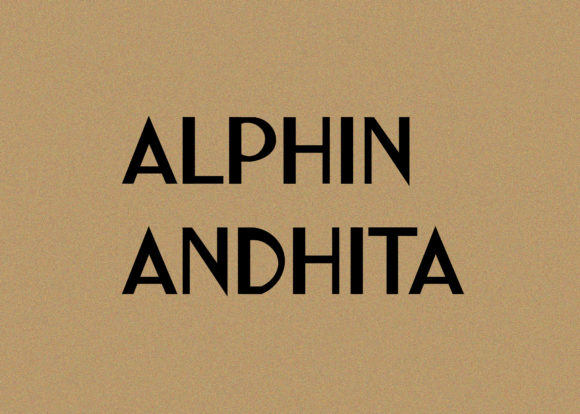
**Alphin Andhita: The Epitome of Sophistication and Grace for Your Logos**
Immerse yourself in the realm of elegance and refinement with Alphin Andhita, a captivating sans serif font that will elevate your logos to new heights of sophistication. Designed by the meticulous Nendiemeliaa, Alphin Andhita is a meticulously crafted masterpiece that exudes an aura of effortless style and timeless appeal.
Unlike ordinary fonts that merely fill space, Alphin Andhita is a transformative force that breathes life into your designs. Its pristine lines, graceful curves, and impeccable balance create a visual symphony that commands attention and evokes a sense of understated luxury. Whether you're crafting logos for high-end fashion brands, exclusive boutiques, or discerning clientele, Alphin Andhita is the perfect choice for conveying an air of sophistication and discerning taste.
Beyond its aesthetic prowess, Alphin Andhita is a font of remarkable versatility. Its adaptability extends across a vast spectrum of projects, from sleek and modern logos to timeless and classic designs. Effortlessly matching the essence of your brand, Alphin Andhita seamlessly integrates into any creative concept, enhancing its impact and leaving an indelible mark on the minds of your audience.
With Alphin Andhita at your disposal, the possibilities are boundless. Let your creativity soar as you explore the infinite design combinations that this extraordinary font unlocks. Elevate your logos beyond the realm of the mundane and into the echelon of timeless elegance. Embrace the allure of Alphin Andhita and witness the transformation of your designs into captivating masterpieces that radiate an air of sophistication and leave a lasting impression.
**Experience the Alphin Andhita Advantage Today:**
* Effortlessly convey elegance and sophistication in your logos
* Enhance your brand's image with a touch of timeless style
* Adapt seamlessly to a wide range of design concepts
* Unleash your creativity and explore endless design possibilities